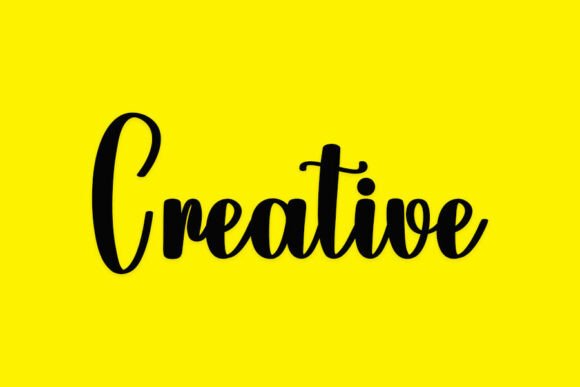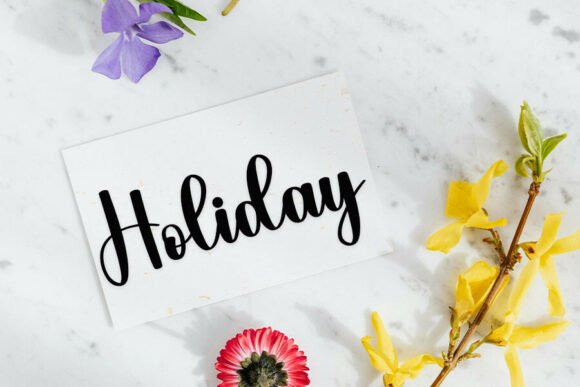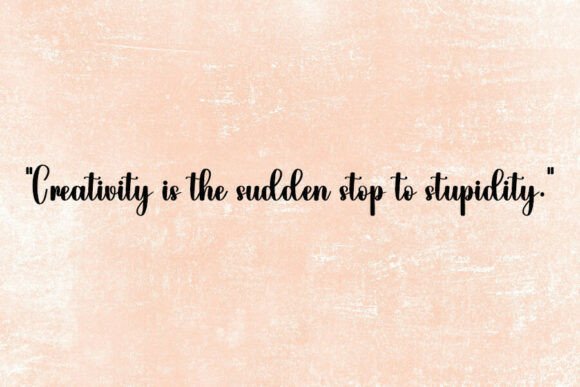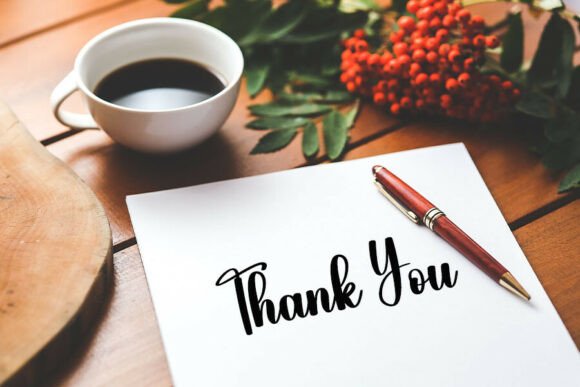
Introducing Building Font: A Delicate Handwritten Font for Unique Designs
Are you a designer or crafter looking for a font that can add a touch of personality to your creations? Look no further than Building Font, a delicate handwritten font carefully crafted for cool and unique designs. In this article, we’ll explore the features and benefits of Building Font, and how it can be used to elevate your designs.
What is Building Font?
Building Font is a beautifully designed handwritten font that is perfect for creating unique and eye-catching designs. With its delicate and elegant strokes, this font is ideal for a variety of design projects, including letters, invitations, food products, titles, and more.
Key Features of Building Font
- Delicate Handwritten Style: Building Font features a delicate handwritten style that is both elegant and sophisticated.
- Unique Character Set: The font includes a unique character set that allows for a wide range of design possibilities.
- Easy to Read: Despite its delicate nature, Building Font is easy to read, making it perfect for body text and headings.
- Highly Versatile: Building Font can be used for a variety of design projects, from letters and invitations to food products and titles.
Benefits of Using Building Font
So why choose Building Font for your design projects? Here are just a few benefits of using this amazing font:
- Adds Personality to Your Designs: Building Font’s unique and delicate style adds a touch of personality to your designs, setting them apart from the rest.
- Perfect for Branding and Marketing: With its elegant and sophisticated style, Building Font is perfect for branding and marketing materials, such as logos, business cards, and brochures.
- Great for Creative Projects: Whether you’re working on a creative project, such as a scrapbook or a photo album, Building Font is a great choice for adding a personal touch.
Using Building Font in Your Designs
So how can you use Building Font in your designs? Here are a few ideas to get you started:
- Letters and Invitations: Use Building Font to create beautiful and elegant letters and invitations for special occasions.
- Food Products: Add a touch of personality to your food product labels and packaging with Building Font.
- Titles and Headings: Use Building Font to create eye-catching titles and headings for your designs, such as posters, flyers, and brochures.
Tips for Getting the Most Out of Building Font
Here are a few tips for getting the most out of Building Font:
- Experiment with Different Sizes and Colors: Building Font looks great in a variety of sizes and colors, so don’t be afraid to experiment and find the perfect combination for your design.
- Pair with Other Fonts: Building Font pairs well with other fonts, so try combining it with a bold font for a striking contrast.
- Use for Both Print and Digital Designs: Building Font is perfect for both print and digital designs, so feel free to use it for a wide range of projects.
In conclusion, Building Font is a delicate handwritten font that is perfect for designers and crafters looking to add a touch of personality to their creations. With its unique character set, elegant style, and versatility, Building Font is a great choice for a wide range of design projects. Whether you’re working on a letter, invitation, food product, or title, Building Font is sure to impress.